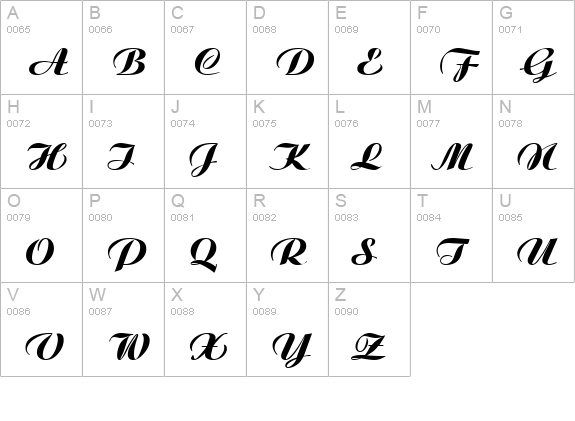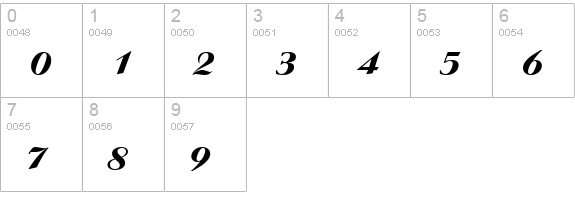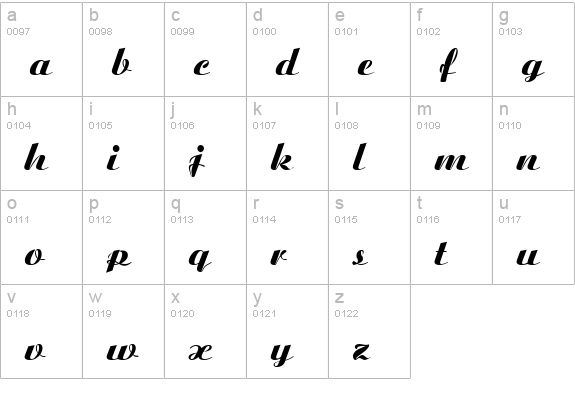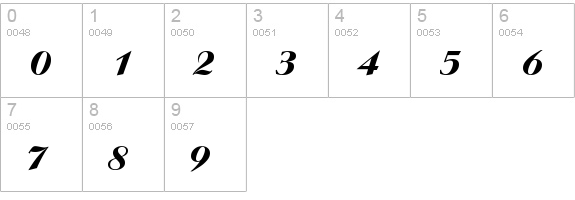
Fumarea Font Details
Fumarea font is a modern and stylish typeface that exudes elegance and sophistication. Its sleek lines and unique design make it perfect for a wide range of design projects, from branding to editorial design. The font features a clean and minimalist look that is both contemporary and timeless. One of the best things about Fumarea font is that it is completely free to download. You can easily access this stunning typeface at FontsMarket.com, where you can find a wide selection of high-quality fonts for all your creative needs. Whether you are working on a website design, a logo, or a print project, Fumarea font is sure to make a lasting impression. With its versatility and eye-catching design, Fumarea font is a must-have for any designer looking to elevate their work to the next level. Download it for free today and add a touch of sophistication to your projects.